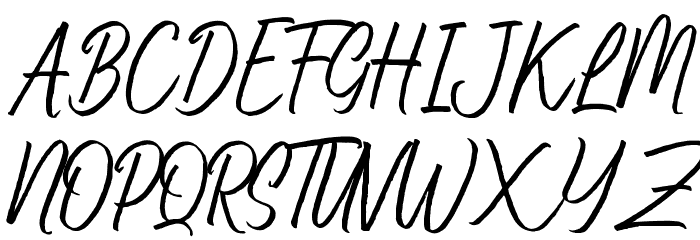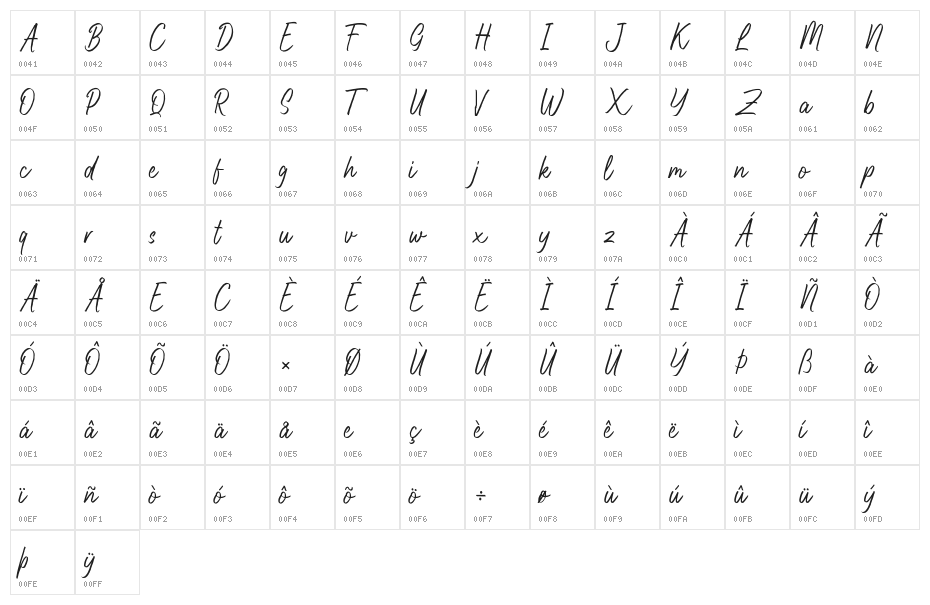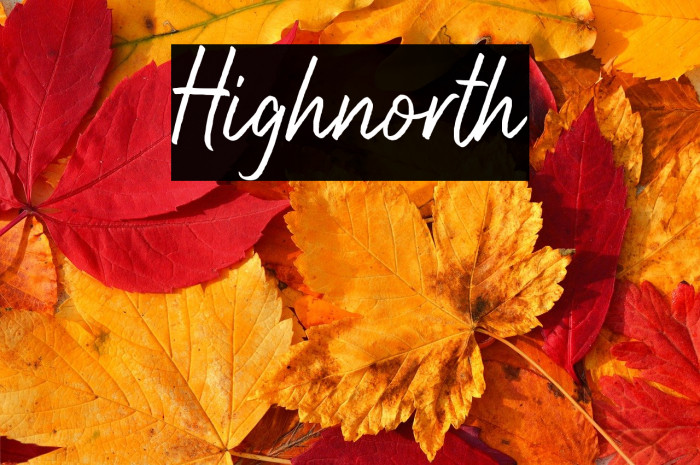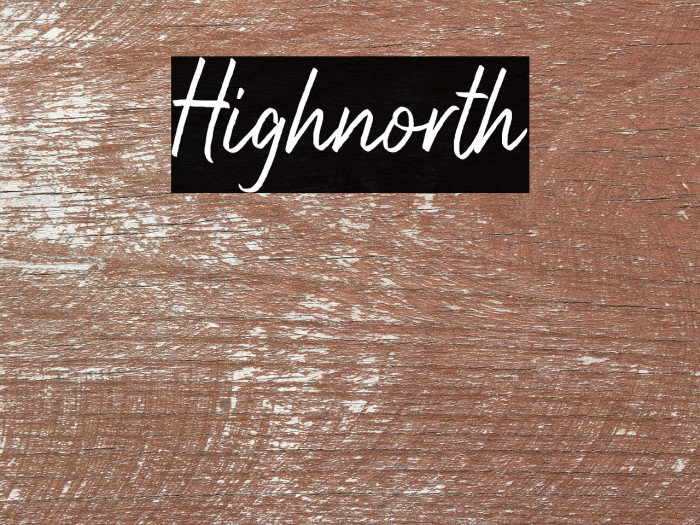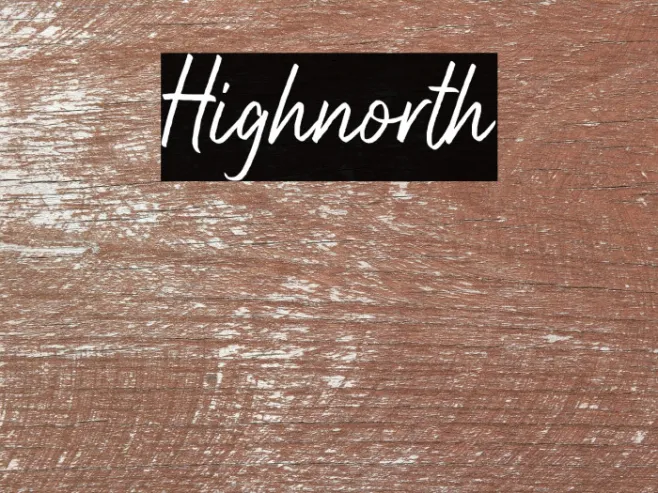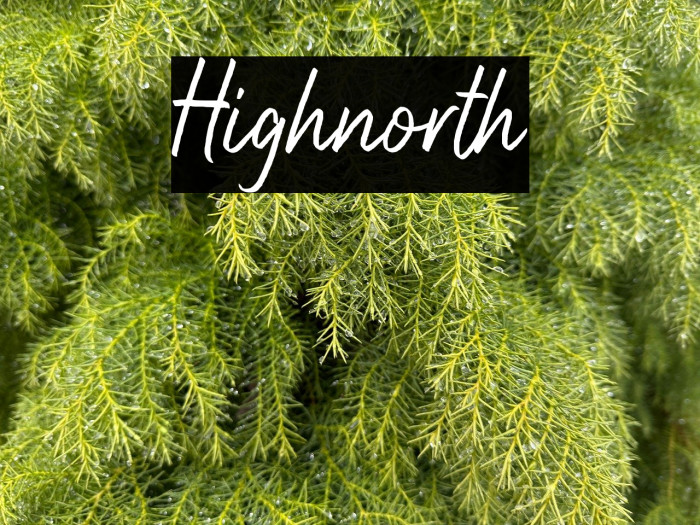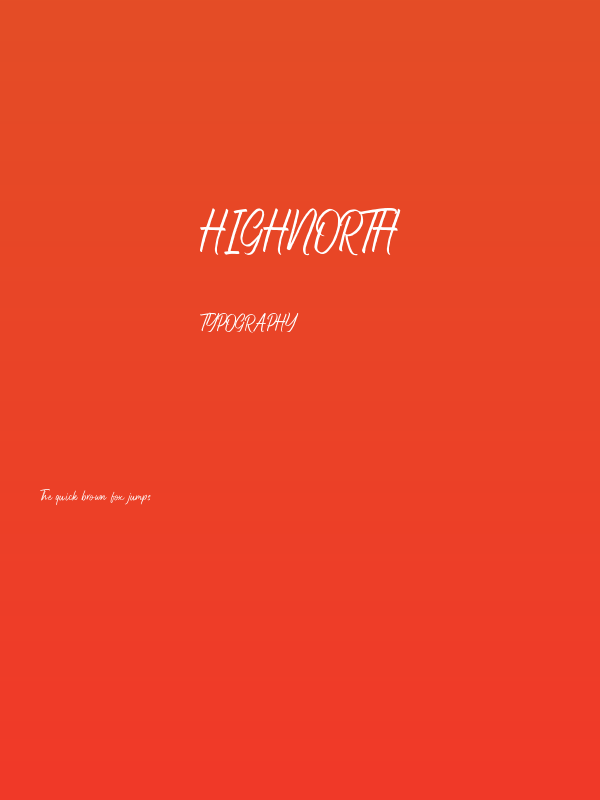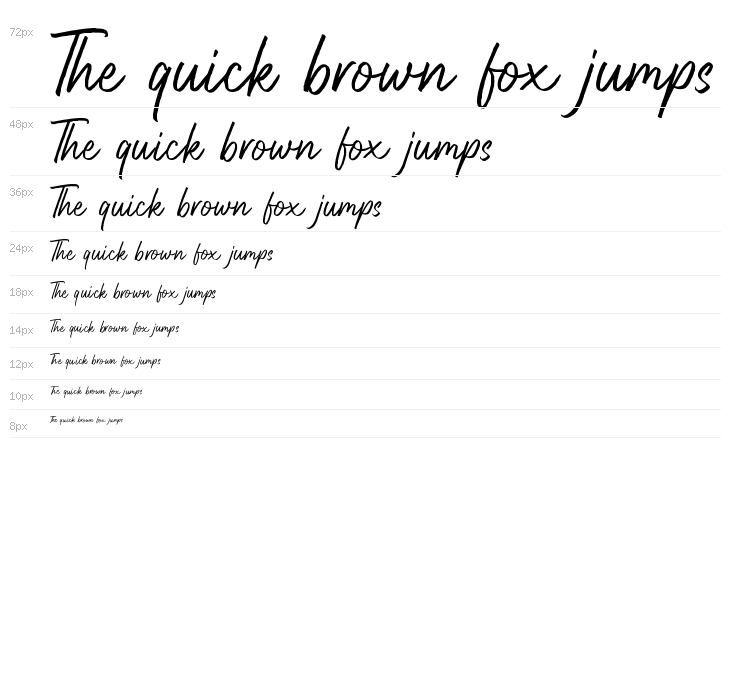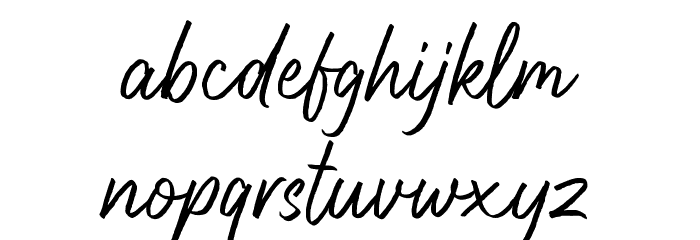
Highnorth Font
Highnorth Description
This font exudes a dynamic and energetic feel with its fluid, cursive style. The letters are interconnected, giving a sense of continuity and flow, reminiscent of elegant handwriting. The strokes are smooth and slightly varied in thickness, adding a touch of sophistication and personality. The uppercase letters are bold and prominent, while the lowercase letters maintain a consistent flow, making it versatile for various design needs. The overall appearance is both stylish and approachable, suitable for projects that require a personal touch.
| Proposed Projects | Ideal for wedding invitations, personal branding, greeting cards, and logo design. |